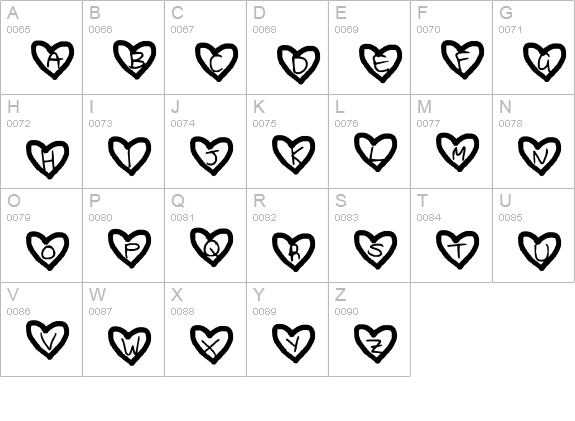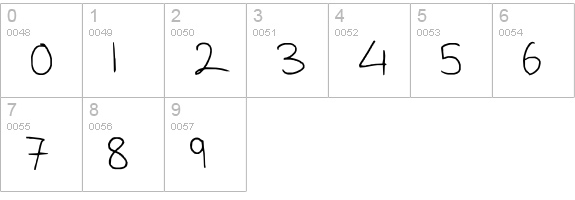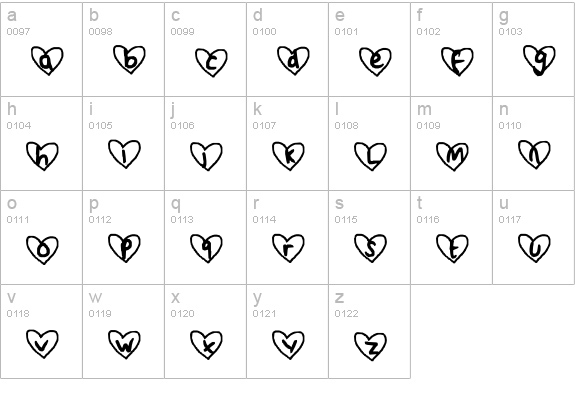
Loving you is another story font is a delightful and charming typeface that will add a touch of whimsy and romance to any design project. With its elegant curves and playful letterforms, this font captures the essence of love in a truly unique way. What sets Loving you is another story font apart is not only its beauty, but also the fact that it is freely available to download at FontsMarket.com. That's right, you can easily access this stunning font without any cost or hassle. Whether you are working on a personal project, a professional design, or simply want to add a dash of love to your social media posts, this font is a perfect choice. Loving you is another story font features a wide range of characters, including uppercase and lowercase letters, numbers, punctuation marks, and special symbols. Its versatility allows you to create eye-catching headlines, elegant wedding invitations, romantic quotes, or any other design that requires a touch of love. The smooth curves and intricate details of Loving you is another story font make it a joy to work with. It is easily readable even at small sizes, ensuring that your message is conveyed clearly and beautifully. Whether you are a seasoned designer or just starting out, this font is user-friendly and will elevate your creations to a whole new level. Download Loving you is another story font today from FontsMarket.com and let your imagination run wild. Express your love, create stunning designs, and make a statement with this freely available font that will bring a touch of romance to any project.